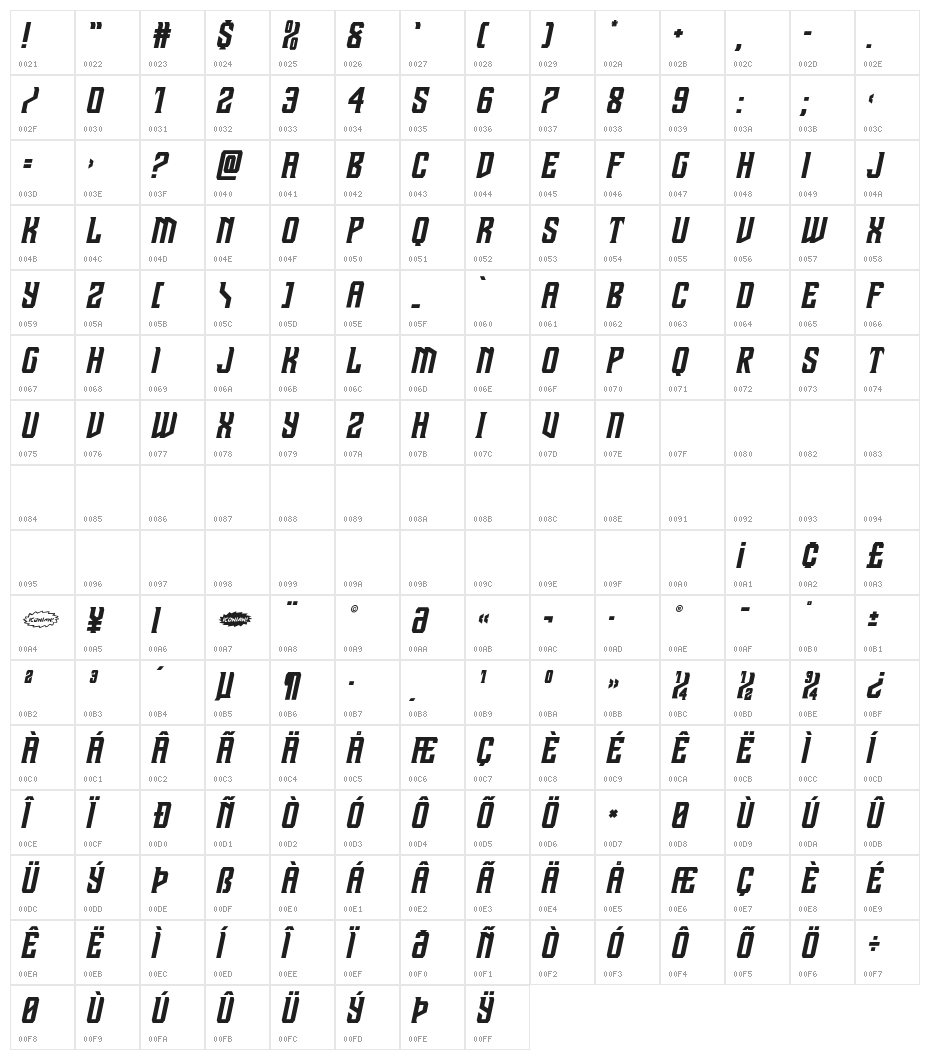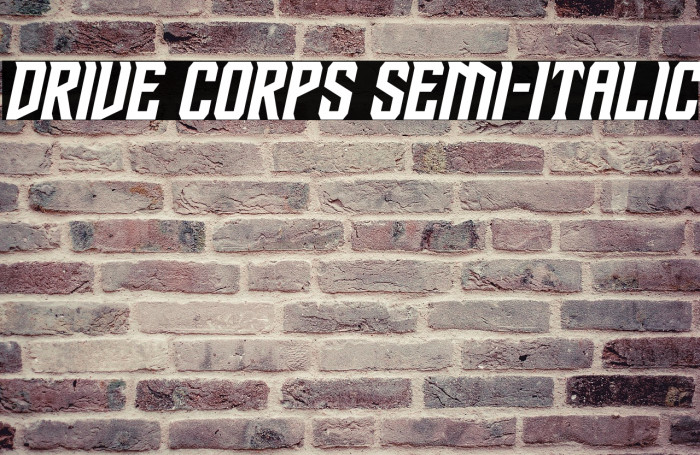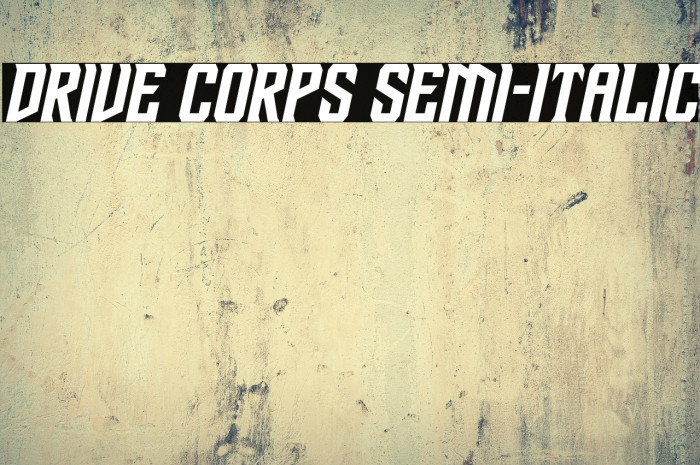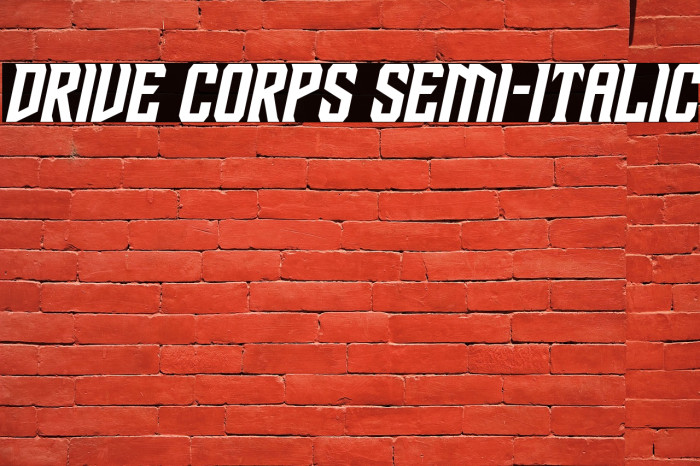
Drive Corps Semi-Italic Font
Drive Corps Semi-Italic Description
This font features a bold and dynamic design with a semi-italic slant, giving it a sense of motion and energy. The characters are angular and geometric, with sharp edges and a strong presence. The uppercase and lowercase letters maintain a consistent style, making it suitable for impactful headlines and attention-grabbing text. The numbers and special characters are designed to match the boldness of the alphabet, ensuring a cohesive look across all elements. The overall appearance is modern and assertive, ideal for projects that require a strong visual statement.